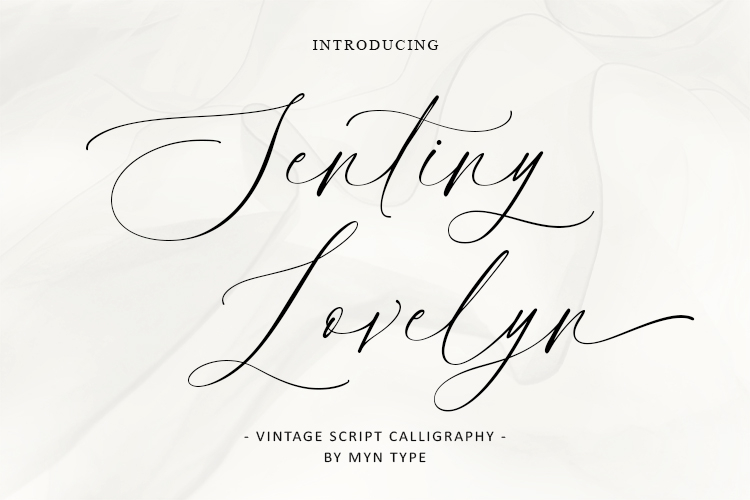
Sentiny Lovelyn - Script Calligraphy
Sentiny Lovelyn
A timeless typeface that captures the elegance and charm of vintage script handwriting. This font features flowing, intricate strokes reminiscent of calligraphy from a bygone era, adding a touch of beautiful swash and sophistication to any design.
Perfectly suited for logos, wedding invitations, branding, signage, display product, and packaging, its graceful curves and carefully crafted details create an authentic vintage script feel. Whether you're aiming to evoke a sense of romance, luxury, or tradition, Sentiny Lovelyn font will elevate your designs, giving them a truly distinctive and stylish touch.
HOW TO USE THE SWASH :
• its very simple just add “-” (hypen symbol) for SHORT SWASH.
• "--" (double hypen symbol) for LONG SWASH on the letter that you want give a swash.
• example : "Lovelyn-" (on the primary preview image).
*for more detail, you can see on the preview image page 11 & 12
• For the ALTERNATE LETTER 1 is only for : d g j l r y z (to get it, you can add "1" on these letter for example "Sentiny1" (on the primary preview image).
• For the ALTERNATE LETTER 2 is only for : g j y z (to get it, you can add "2" on these letter).
*for more detail, you can see on the preview image page 11 & 12